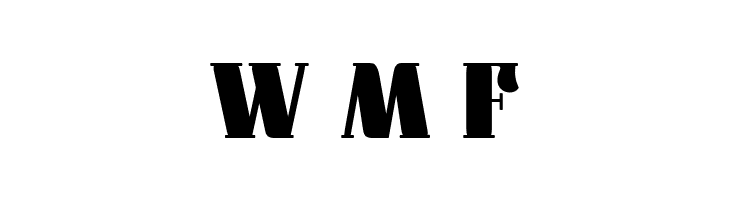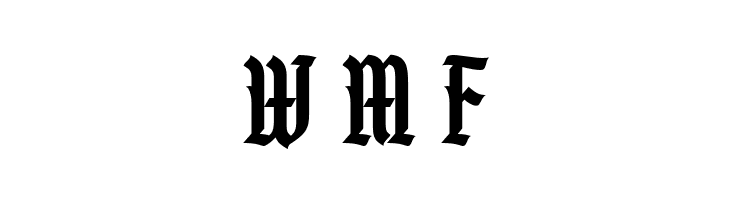
A bold, decorative font with nature-inspired embellishments.
A bold, decorative font with thick strokes and a modern flair.
A bold, blackletter-inspired font with sharp, angular lines and dramatic serifs.